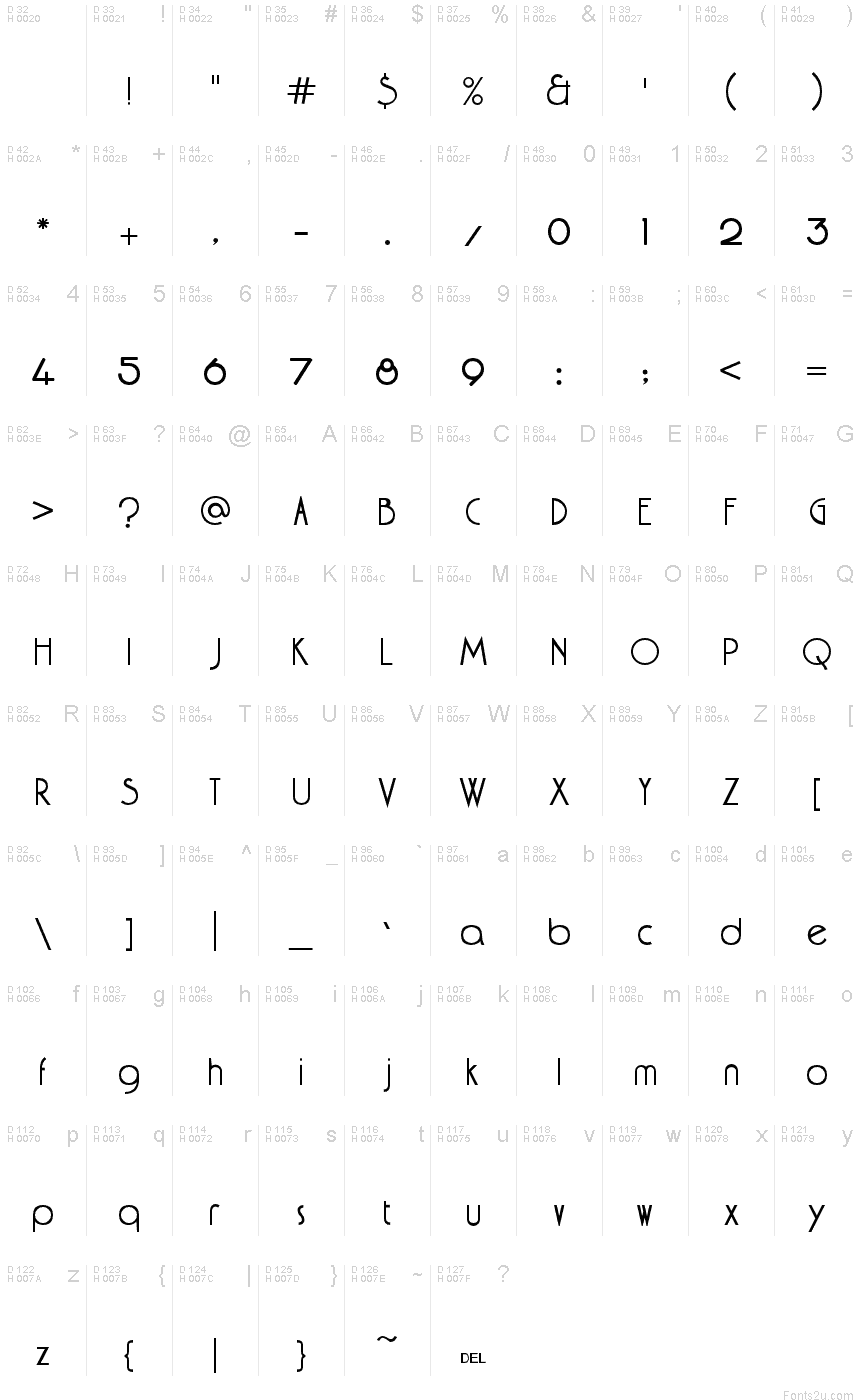
AGA Balloon by Mohammad Alagha of Almedia Interactive Ltd. is a free high-contrast sans serif with tall, elegant proportions. Broad rounded curves meet razor-thin joins and pointed diagonals, giving the lettering an unusual mix of softness and tension.
It can create a refined but unconventional title treatment for fashion branding and event posters. The exaggerated stroke changes also suit beauty packaging, where the lettering can echo sweeping product silhouettes. In editorial design, it suits magazine mastheads and feature openers.